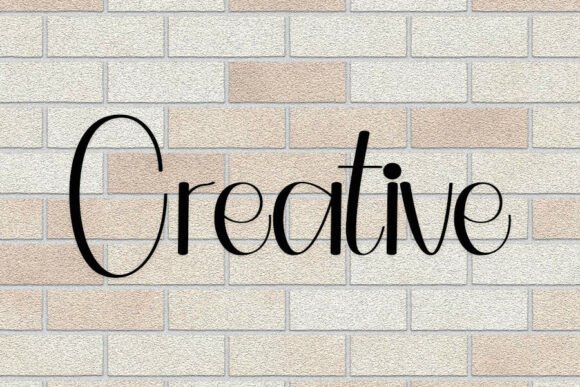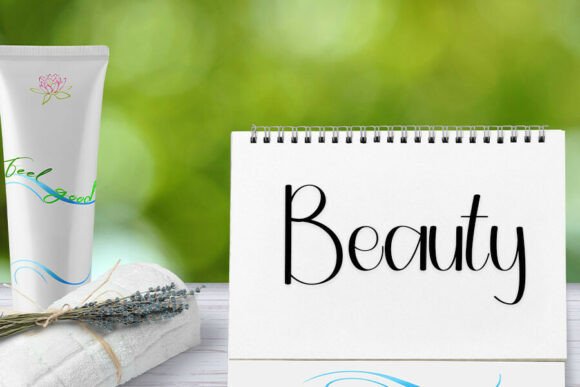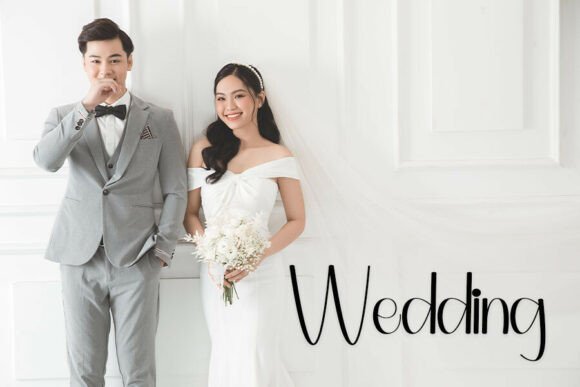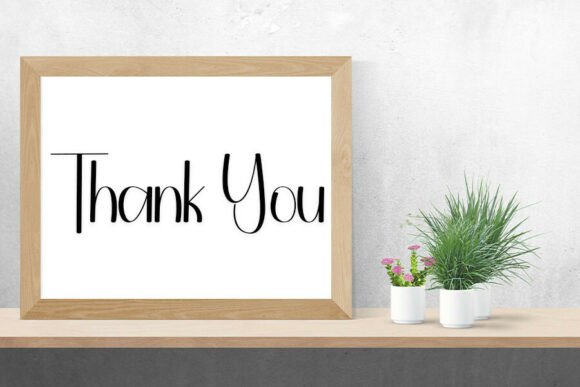
Introducing Badminton Font: The Perfect Handwritten Font for Unique Designs
Are you a designer or crafter looking for a font that can add a touch of elegance and whimsy to your projects? Look no further than Badminton Font, a delicate handwritten font carefully crafted for a cool and unique design. In this article, we’ll explore the features and benefits of Badminton Font, and how it can be used to elevate your designs.
What is Badminton Font?
Badminton Font is a beautiful handwritten font that is perfect for adding a personal touch to your designs. With its delicate and elegant lines, this font is ideal for creating unique and eye-catching designs that stand out from the crowd. Whether you’re designing invitations, titles, or packaging for food products, Badminton Font is the perfect choice.
Features of Badminton Font
So, what makes Badminton Font so special? Here are just a few of its key features:
- Delicate and elegant lines: Badminton Font features delicate and elegant lines that give it a whimsical and romantic feel.
- Handwritten with care: This font is carefully crafted by hand to ensure that every letter and character is unique and full of character.
- Cool and unique design: Badminton Font has a cool and unique design that’s perfect for designers and crafters who want to add a touch of personality to their projects.
- Versatile: This font can be used for a wide range of projects, from letters and invitations to food products and titles.
Uses for Badminton Font
So, how can you use Badminton Font in your designs? Here are just a few ideas to get you started:
- Invitations: Use Badminton Font to create beautiful and elegant invitations for weddings, parties, and other special occasions.
- Food products: Add a touch of whimsy and personality to your food product packaging with Badminton Font.
- Titles and headings: Use Badminton Font to create eye-catching titles and headings for your blog posts, articles, and other written content.
- Letters and cards: Write personal letters and create handmade cards with Badminton Font for a unique and special touch.
Benefits of Using Badminton Font
So, why should you choose Badminton Font for your designs? Here are just a few benefits:
- Adds a personal touch: Badminton Font adds a personal touch to your designs, making them stand out from the crowd.
- Unique and eye-catching: This font is unique and eye-catching, making it perfect for designers and crafters who want to create designs that get noticed.
- Easy to read: Despite its delicate lines, Badminton Font is easy to read, making it perfect for body text and other written content.
- Versatile: Badminton Font can be used for a wide range of projects, making it a great addition to any designer’s toolkit.
Tips for Using Badminton Font
Here are a few tips for using Badminton Font in your designs:
- Use it sparingly: While Badminton Font is beautiful, it can be a bit ornate for large blocks of text. Use it sparingly to add emphasis and personality to your designs.
- Pair it with other fonts: Badminton Font pairs well with other fonts, such as sans-serif fonts and script fonts. Experiment with different pairings to find the one that works best for your design.
- Experiment with colors: Badminton Font looks great in a variety of colors, from bold and bright to soft and pastel. Experiment with different colors to find the one that works best for your design.
In conclusion, Badminton Font is a beautiful and unique handwritten font that’s perfect for designers and crafters who want to add a touch of elegance and whimsy to their projects. With its delicate lines, cool and unique design, and versatility, Badminton Font is a great addition to any designer’s toolkit. Whether you’re designing invitations, titles, or packaging for food products, Badminton Font is the perfect choice.